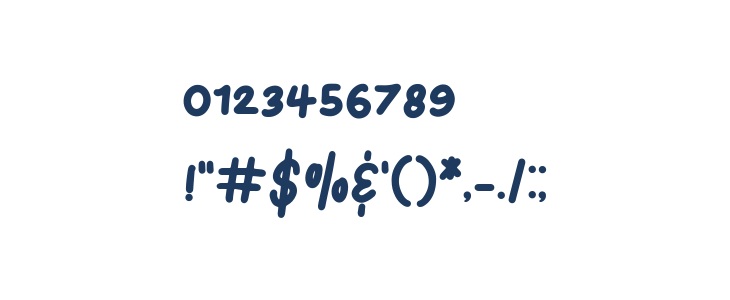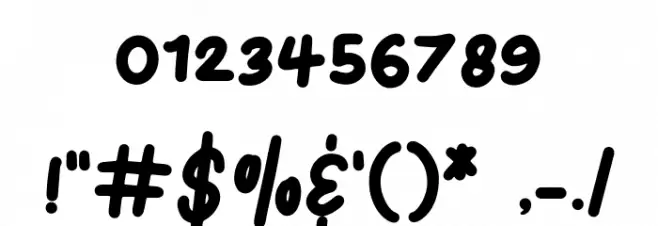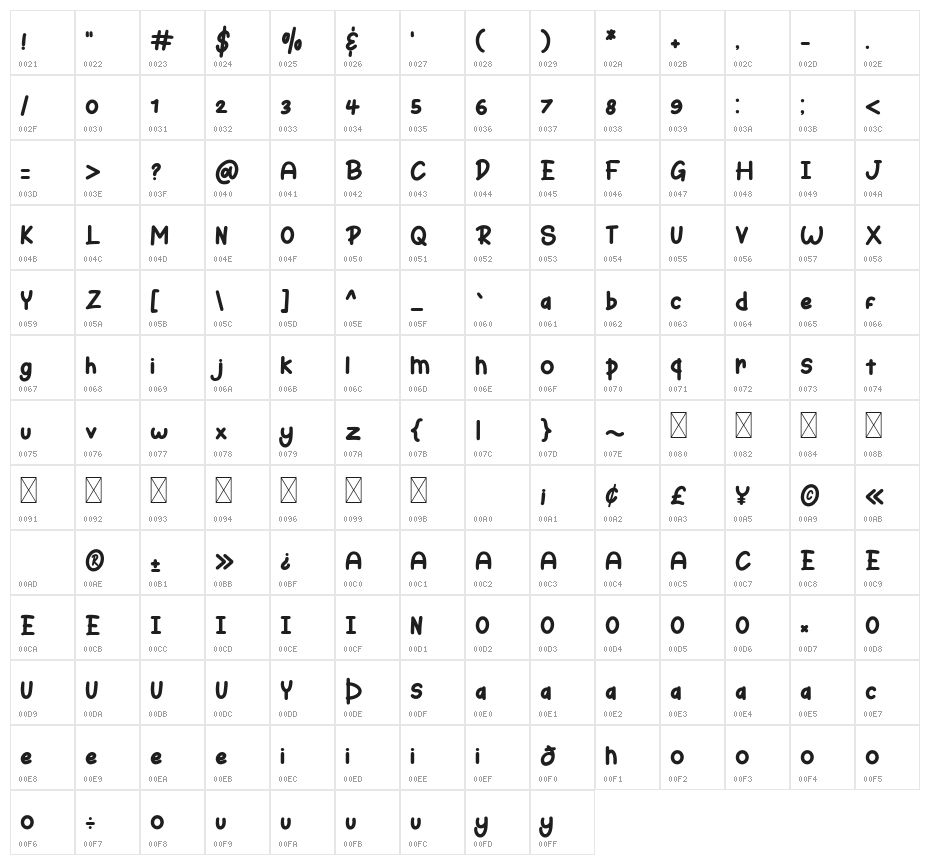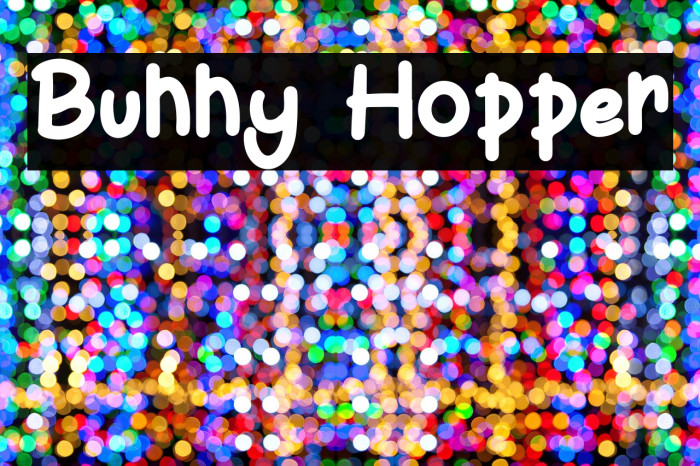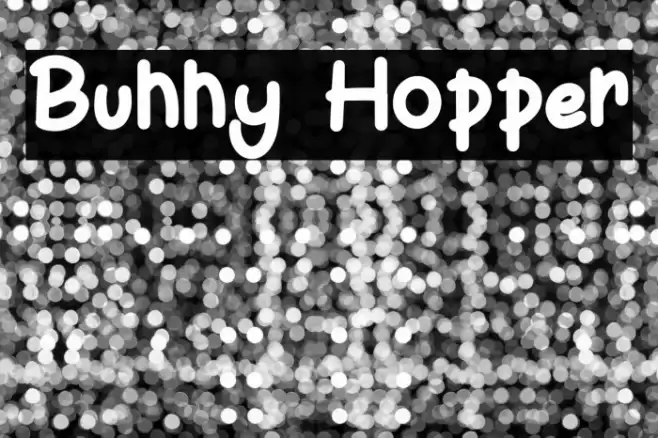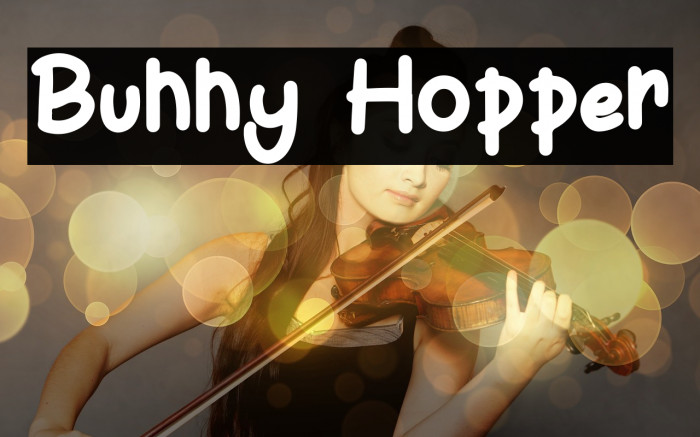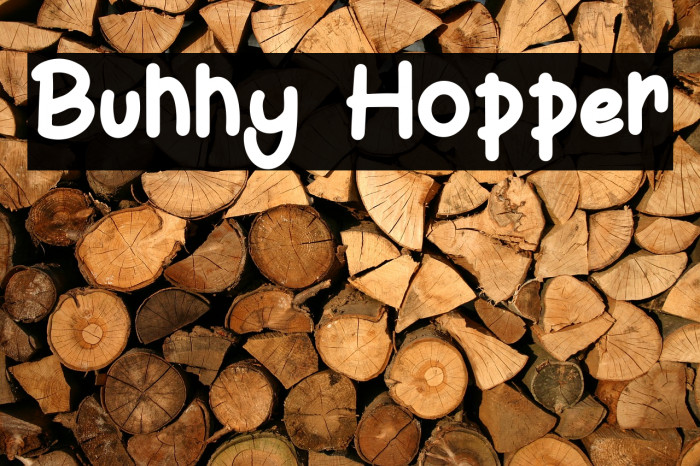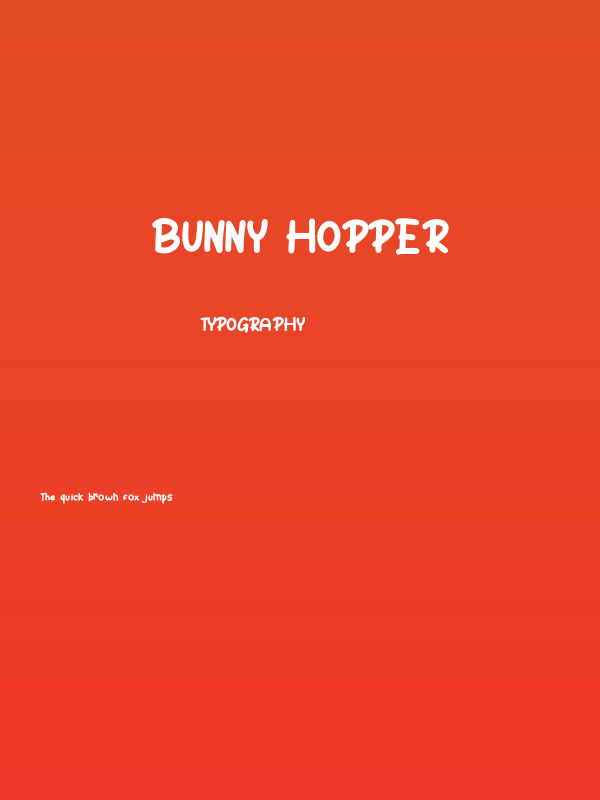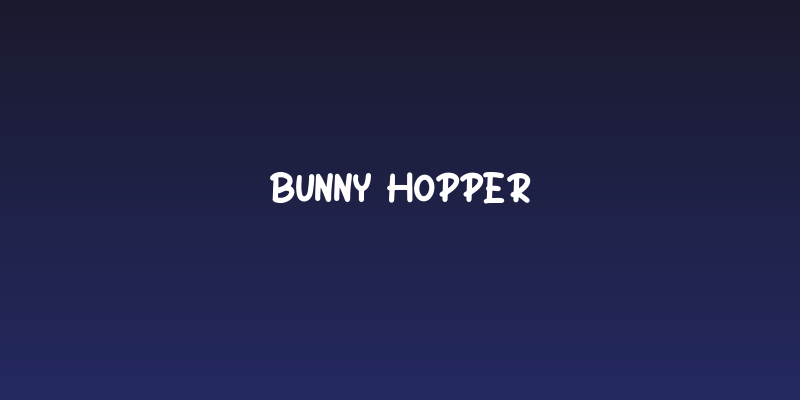
Bunny Hopper Font
Bunny Hopper Description
This playful and whimsical font features rounded, bubbly characters that exude a sense of fun and creativity. The letters are bold and slightly irregular, giving them a hand-drawn appearance that adds a personal touch. The uppercase and lowercase letters maintain a consistent style, with smooth curves and a friendly demeanor. Numbers and special characters are equally playful, making this font suitable for a variety of creative projects. Its unique style is perfect for capturing attention and conveying a lighthearted message.